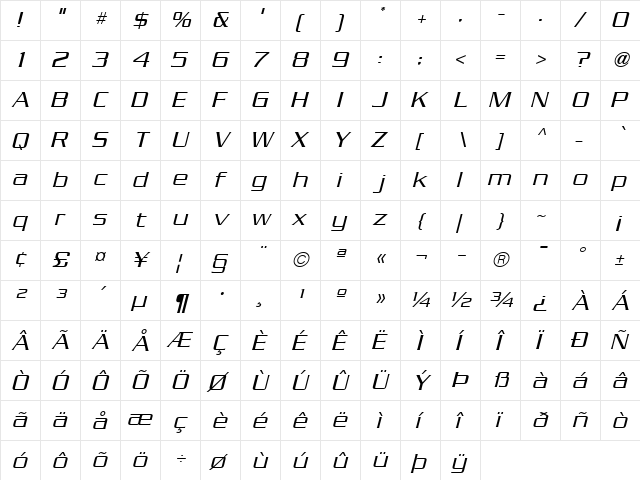
Serpentine ICG LightOblique Font Preview
Serpentine ICG LightOblique
Design Context for Serpentine ICG Typeface
Serpentine ICG offers clean, dependable letterforms without strong stylistic allegiance, making it a practical choice for designers who need flexibility. The dynamic lean of this cut emphasises speed and emphasis in any layout. The delicate stroke weight brings airiness and refinement to layouts.